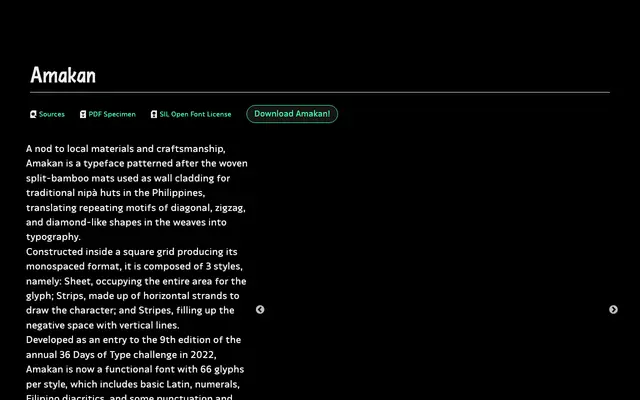
Amakan
A Filipino typeface by Jad Maza that translates the woven diagonal and diamond motifs of split-bamboo amakan mats into three distinct typographic styles on a square grid.
Designed by Jad Maza of Iloilo, Philippines, the typeface began as a 36 Days of Type entry in 2022 and has since grown into a functional font of 66 glyphs per style. The three styles, Sheet, Strips and Stripes, each interpret the same letterforms differently: Sheet fills the full glyph area, Strips constructs characters from horizontal strands and Stripes fills negative space with vertical lines. Contextual alternates cycle the weave direction, while a reverse stylistic set and blank-space set extend its compositional possibilities.
A monospaced display typeface built on a square grid, with letterforms derived from the geometric weave patterns of split-bamboo mats rather than conventional calligraphic or typographic traditions.